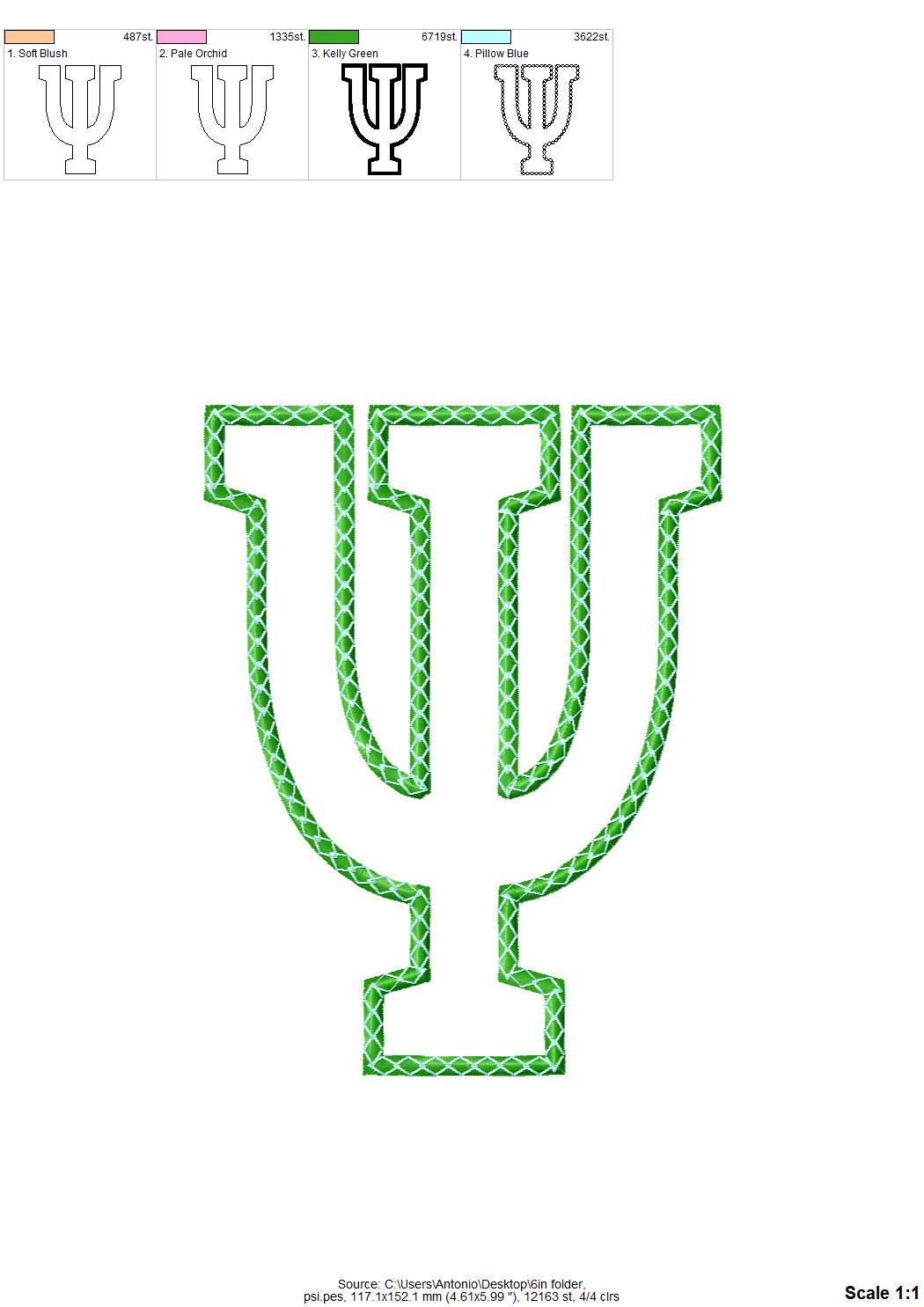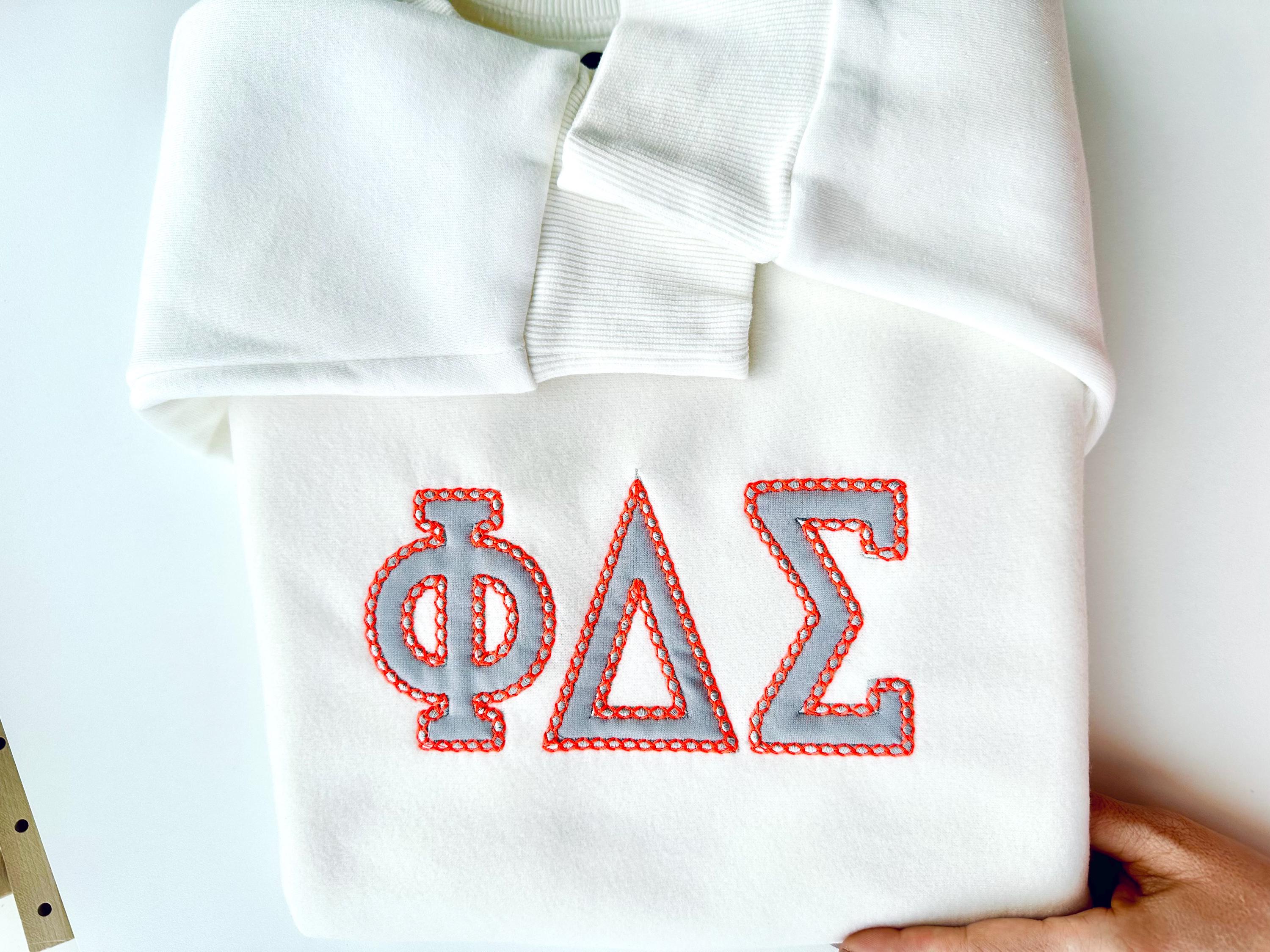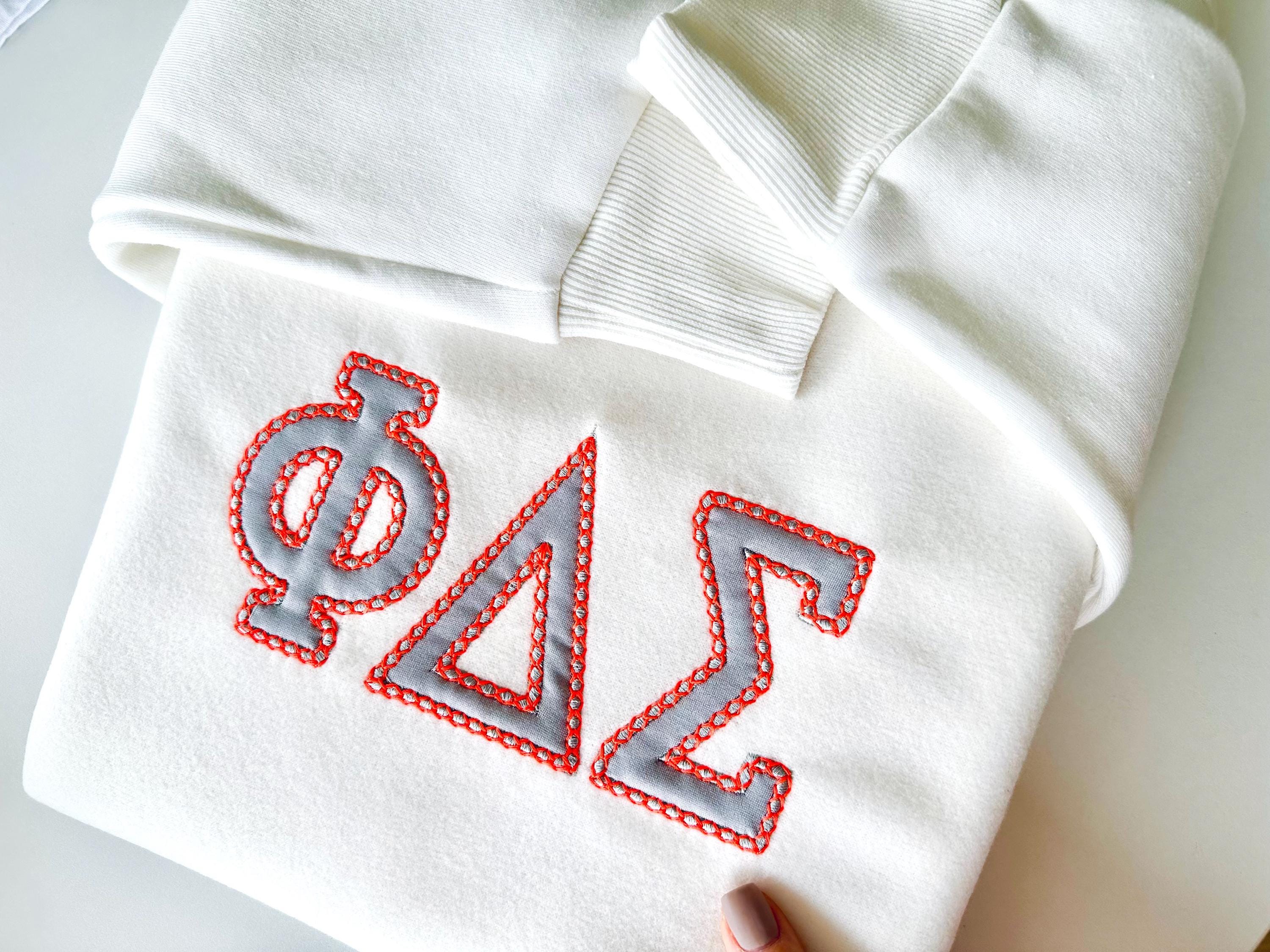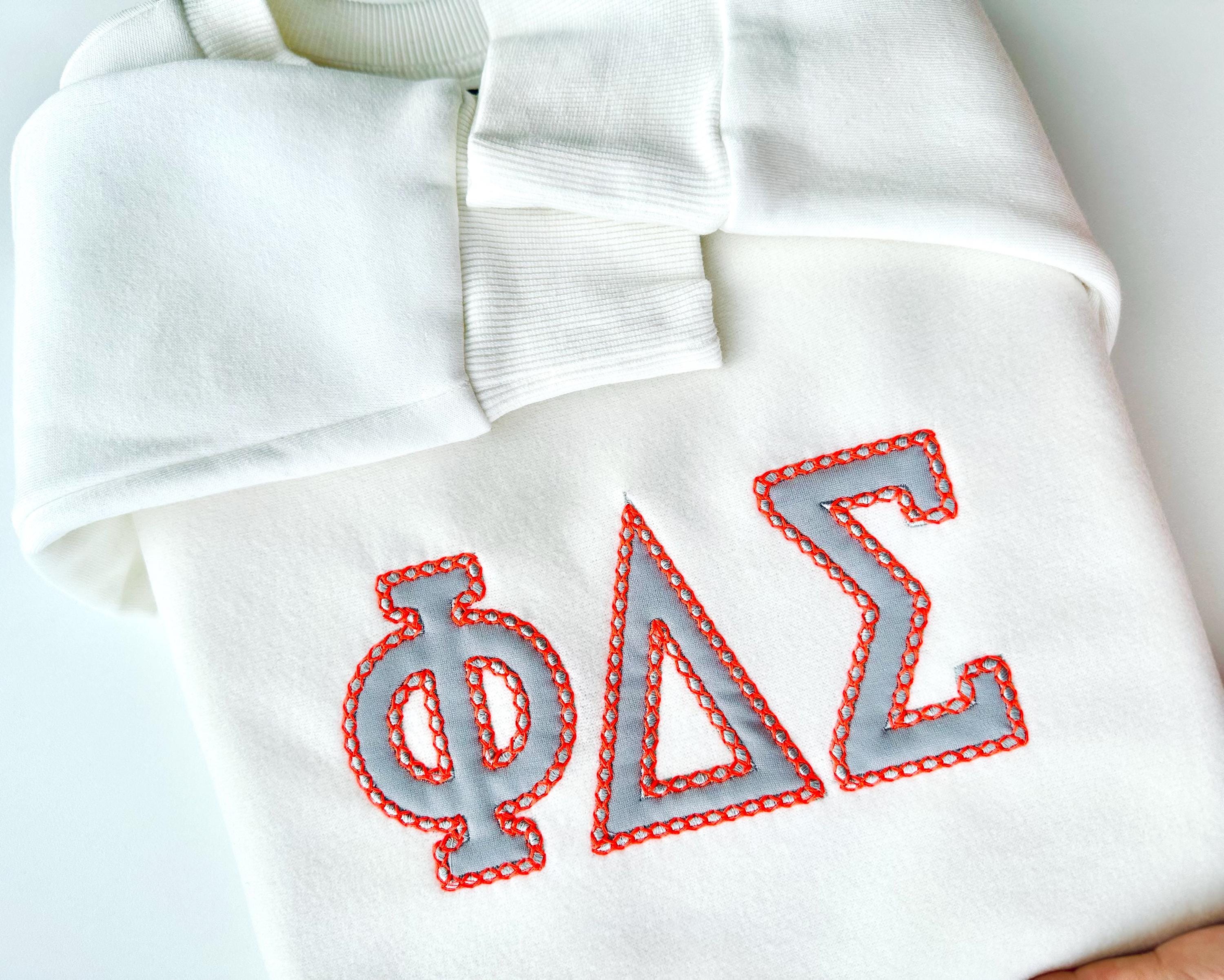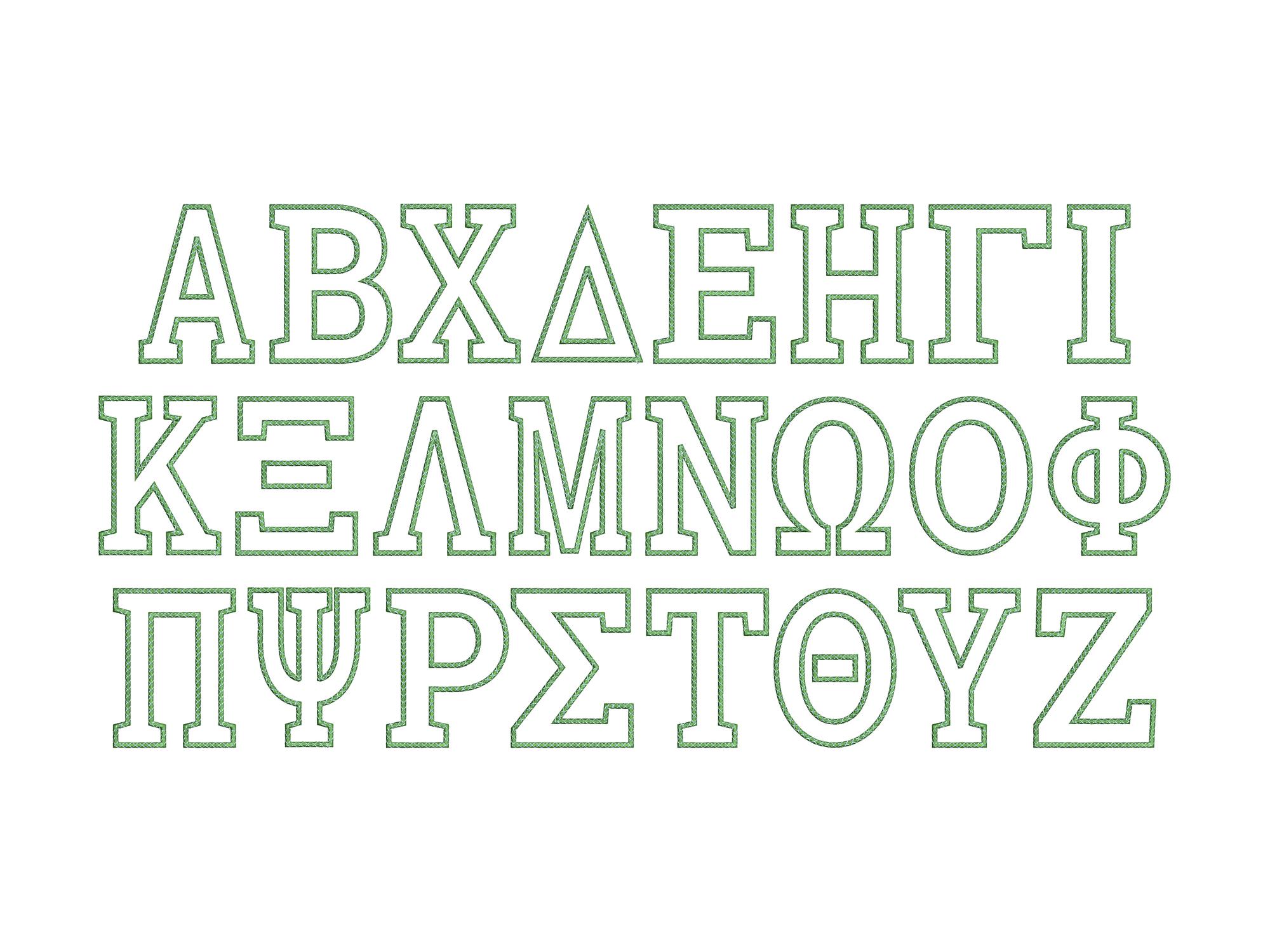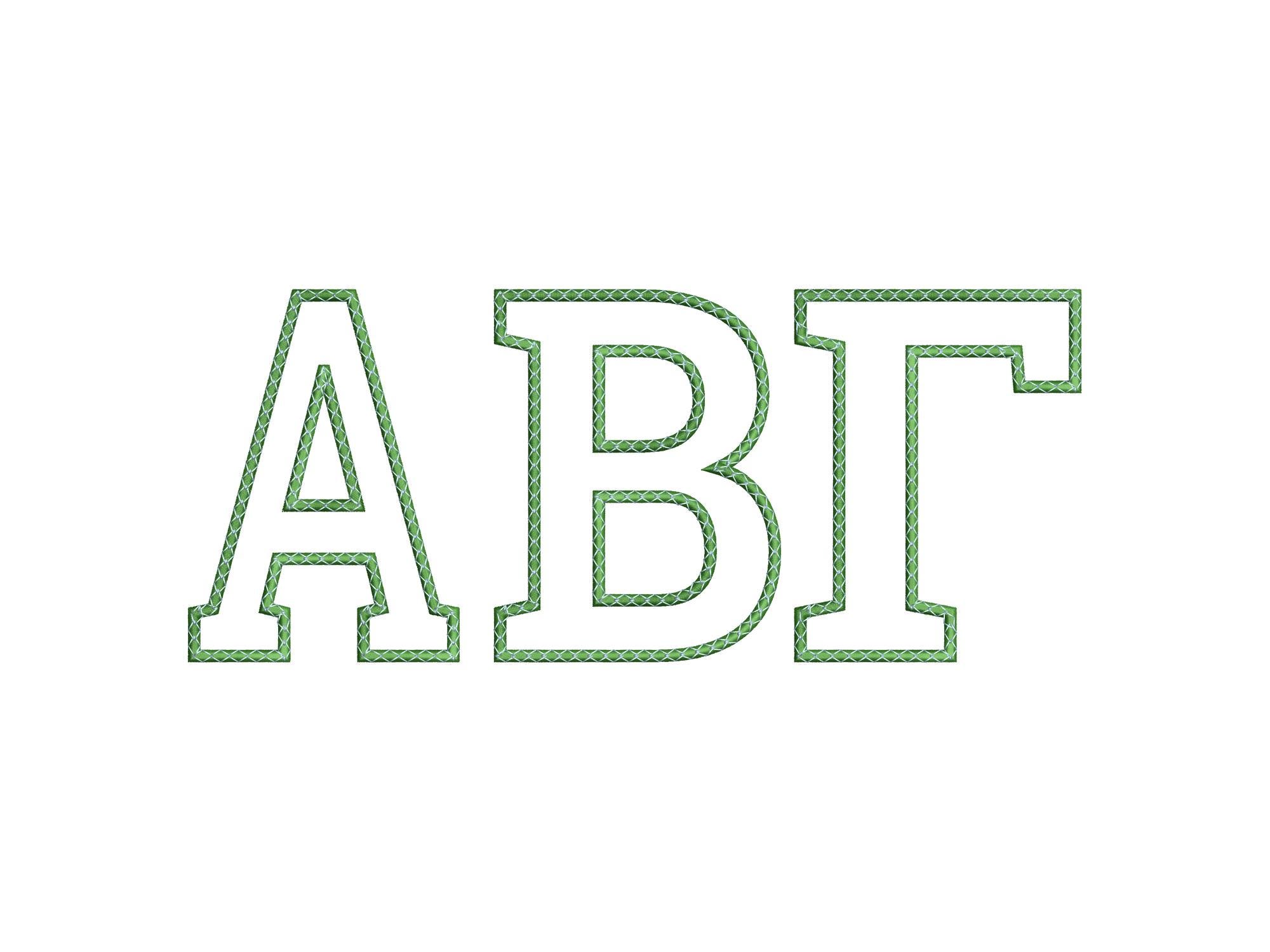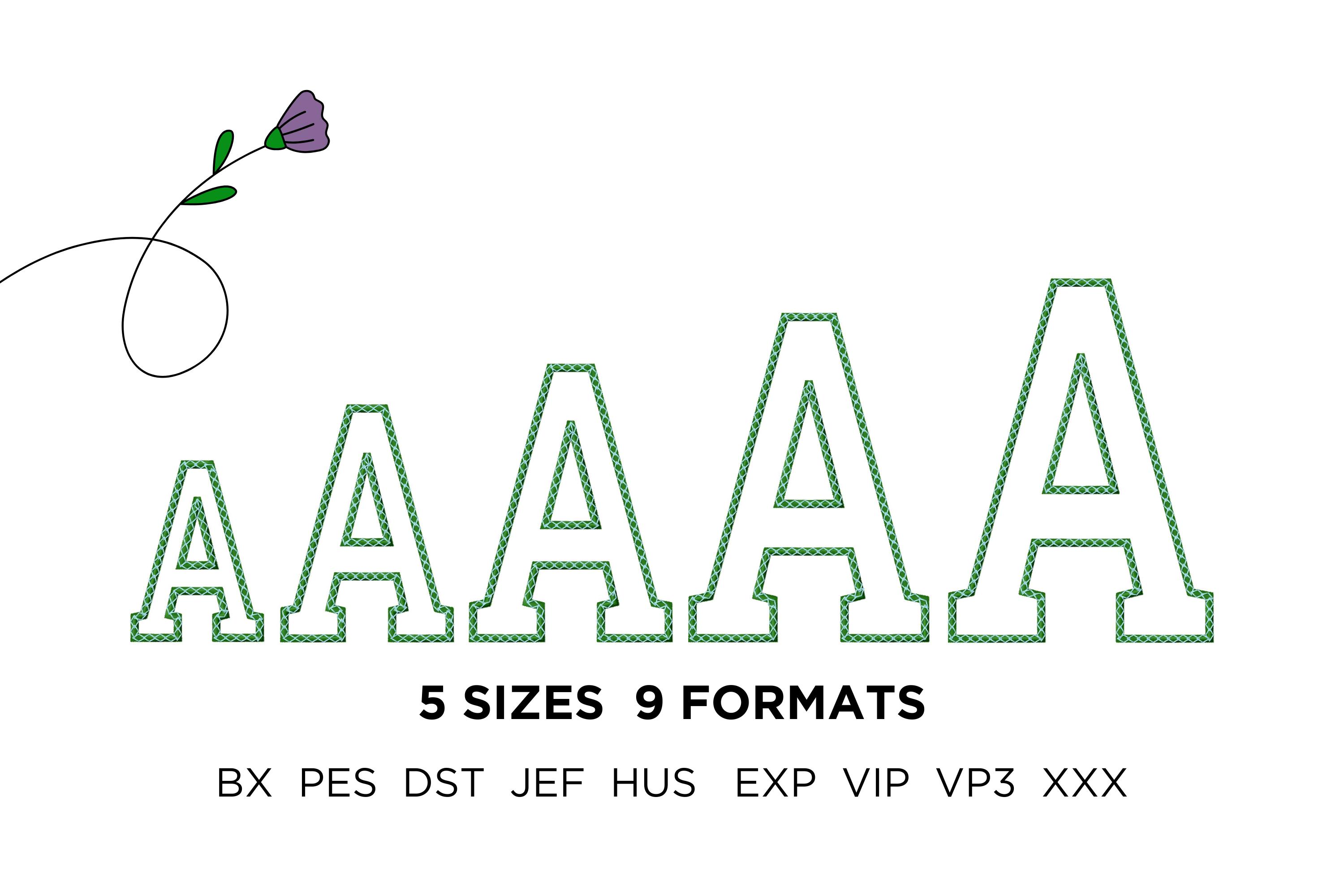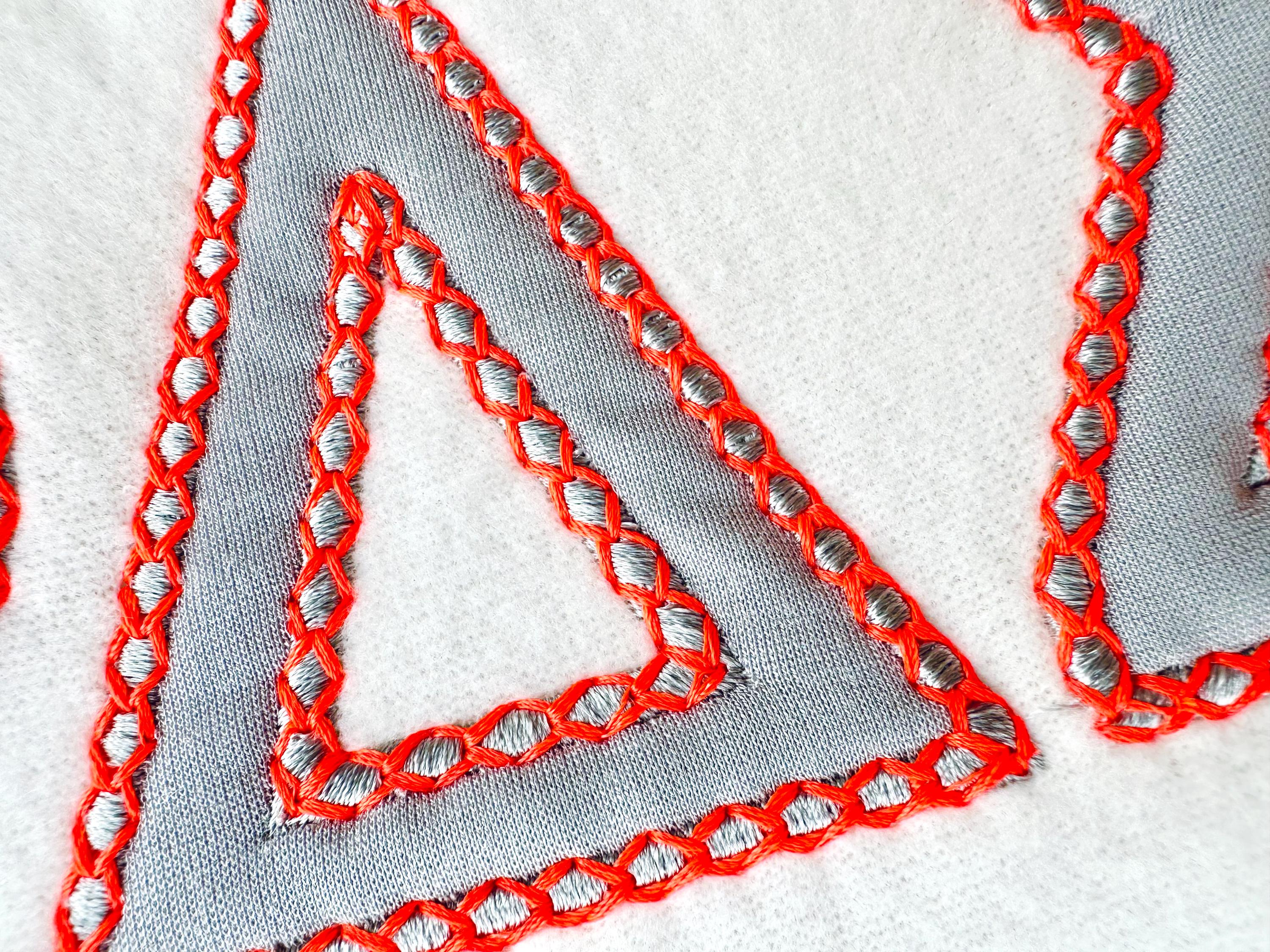
Entire alphabet Big Greek FONT Applique satin stitch and top stitch Monogram sororities fraternities machine embroidery designs 4 up to 8 in
Applique letters with classic satin stitch outline and a nice decorative neat top stitch.
Whole Greek alphabet uppercase letters.